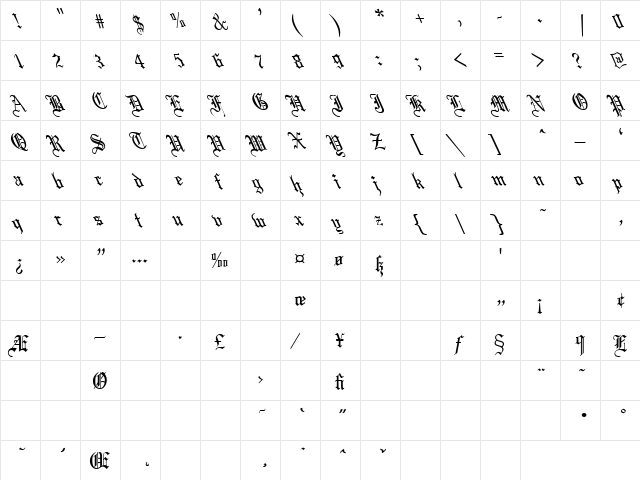
Captive Angel 1 Regular
Design Context for Captive Angel 1 Typeface
Captive Angel 1 is a composed and adaptable typeface that performs quietly and consistently across a wide range of design contexts.